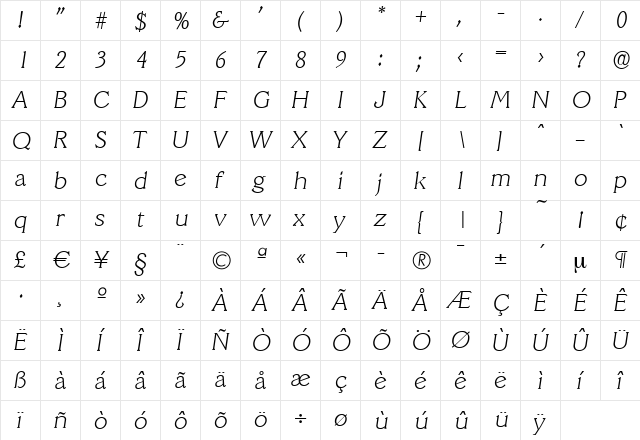
LeroyBecker-ExtraLight Italic
Design Context for LeroyBecker-ExtraLight Typeface
LeroyBecker-ExtraLight is a composed and adaptable typeface that performs quietly and consistently across a wide range of design contexts. The slanted form adds forward momentum and visual energy. Its slender proportions lend an understated elegance to any composition.